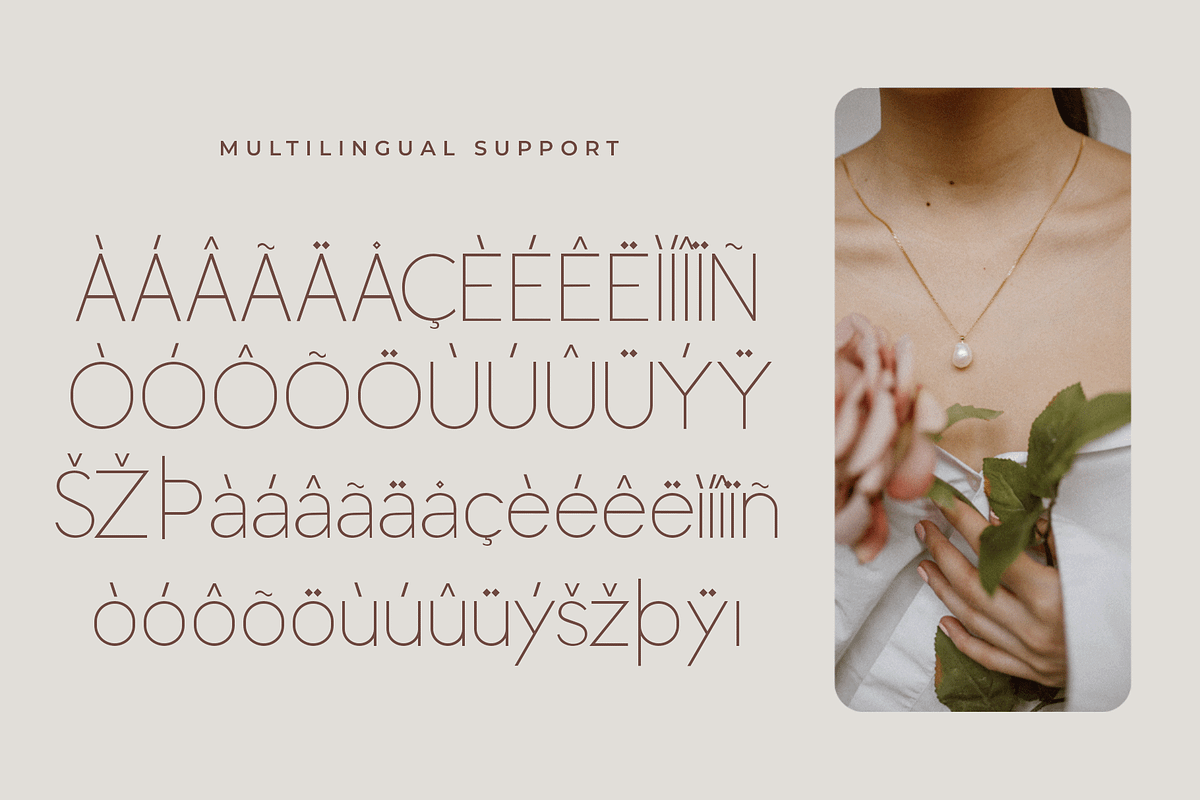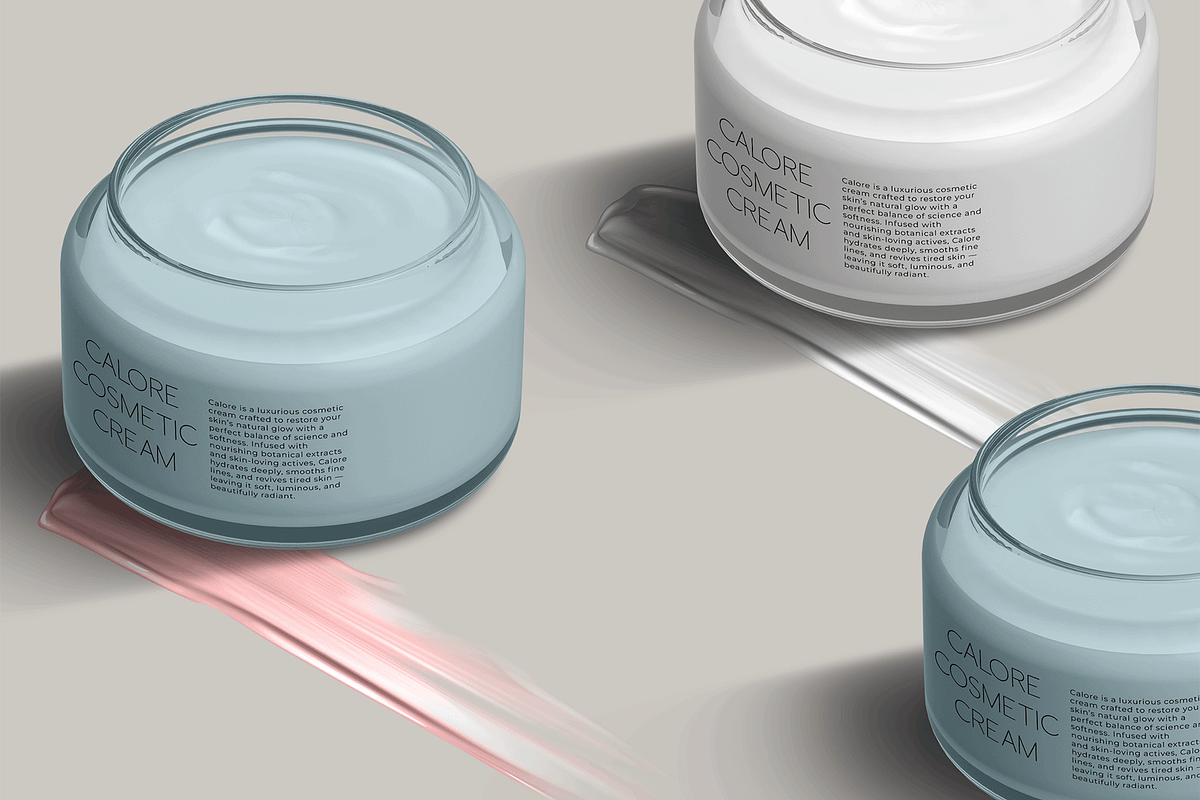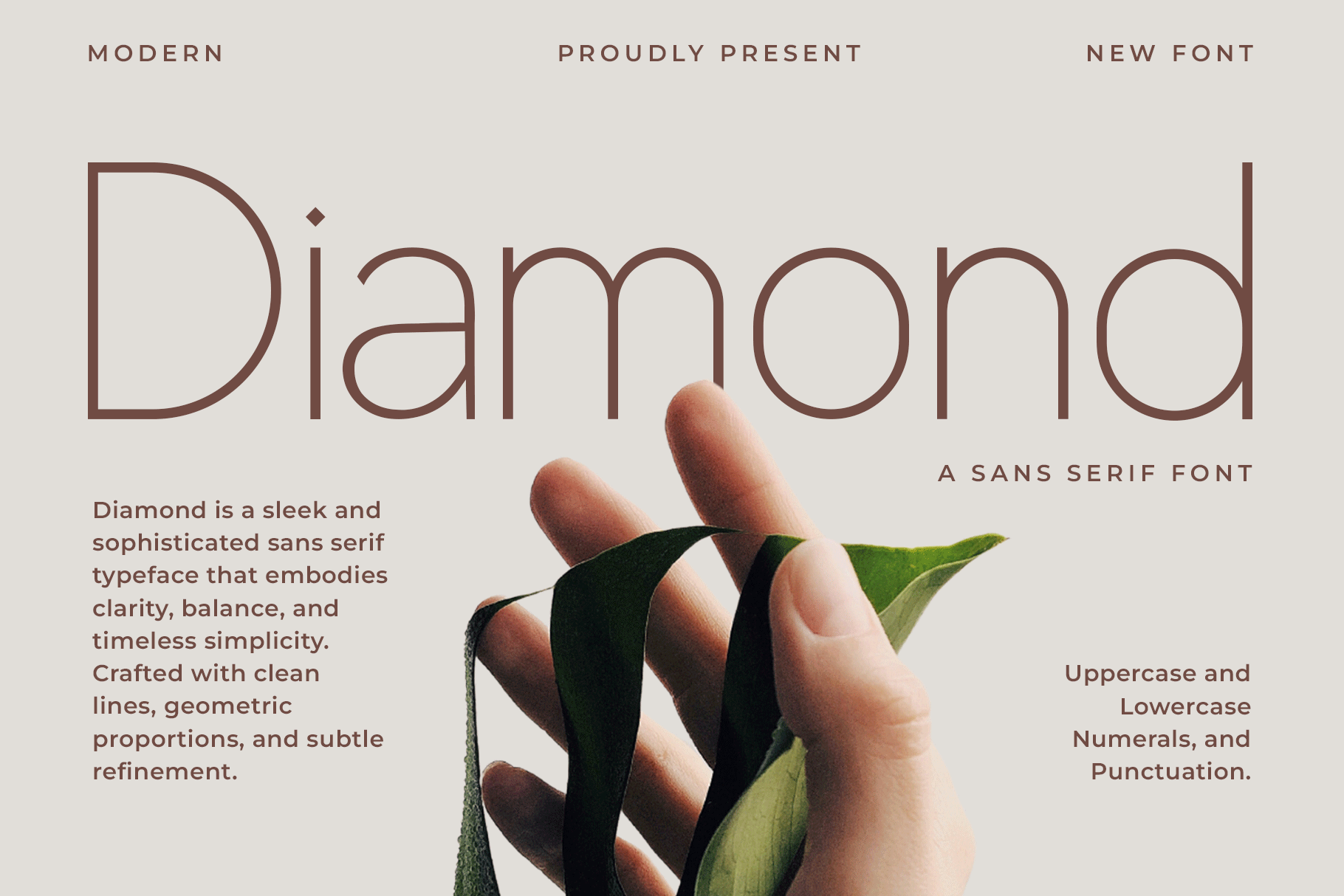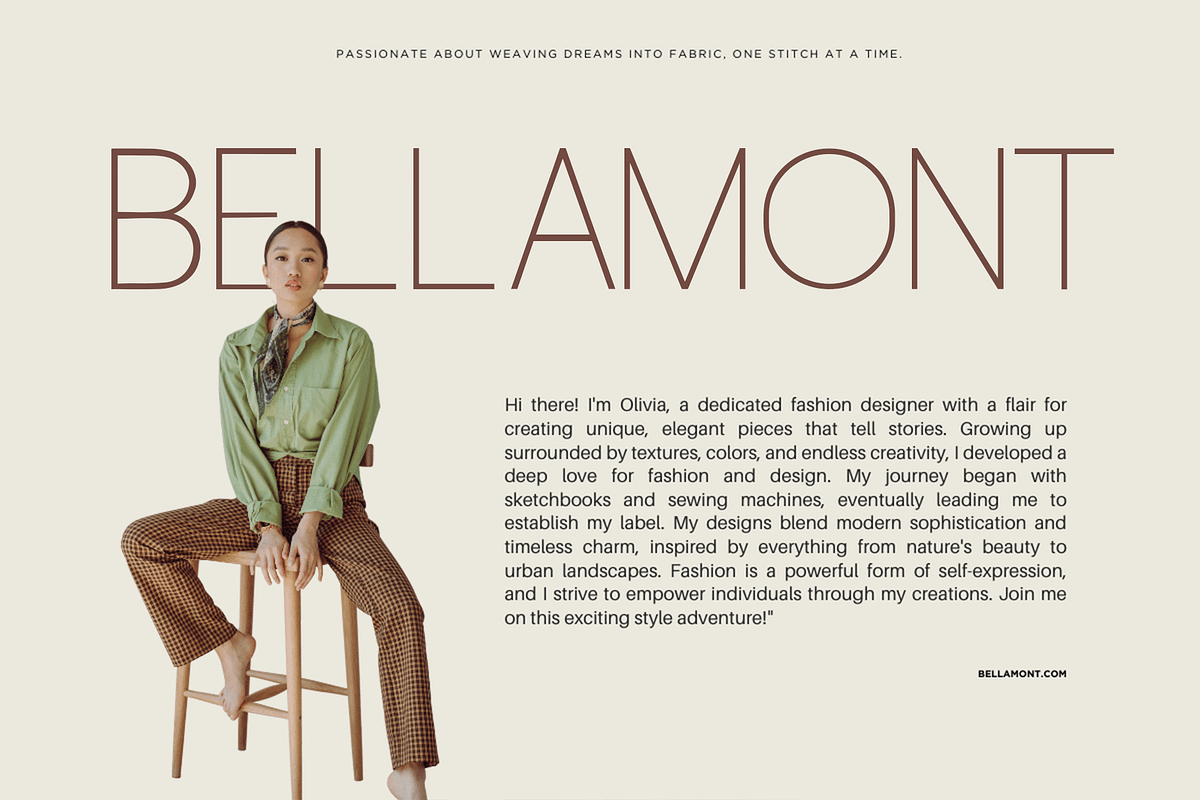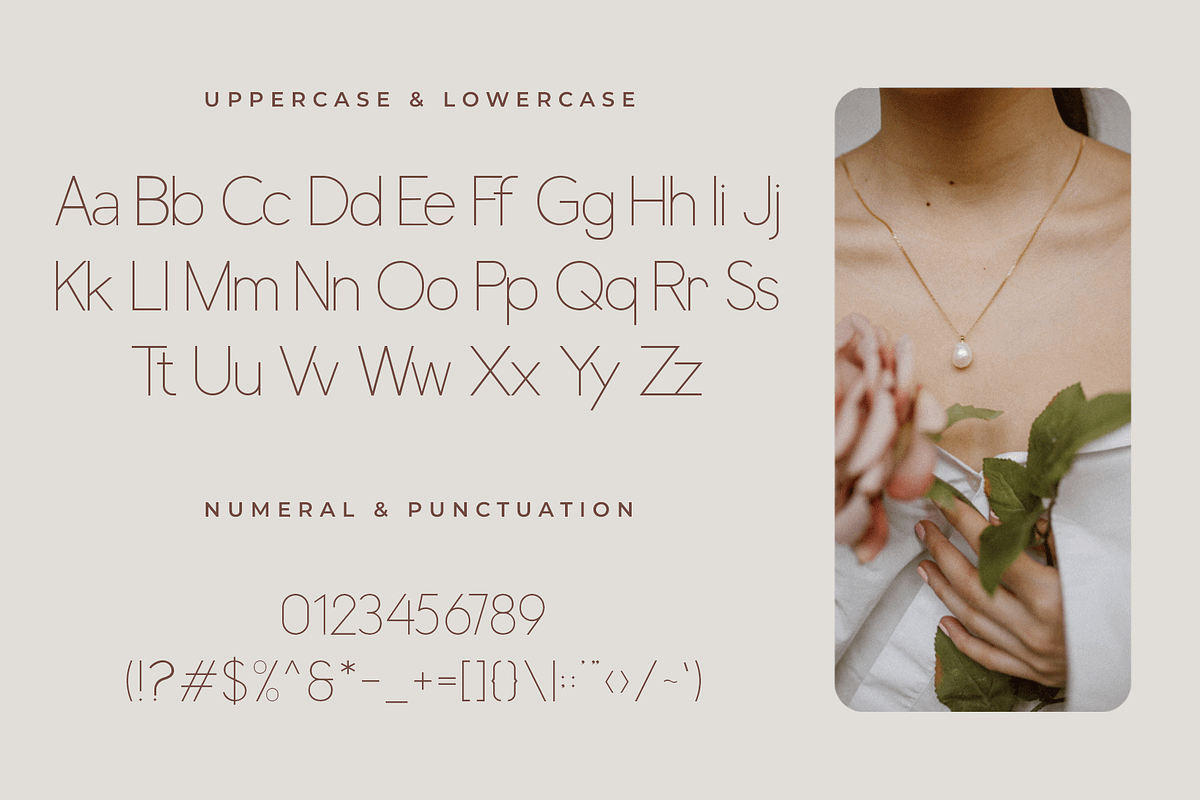
Diamond–Elegant Sans Serif Typeface
Diamond – Elegant Sans Serif Typeface
Diamond is a sleek and sophisticated sans serif font that captures the beauty of minimalism with a refined geometric structure. Its clean lines, sharp edges, and balanced proportions give your designs a professional and luxurious look while maintaining optimal readability across all platforms.
Perfect for branding, editorial layouts, logo design, packaging, and digital applications, Diamond offers a versatile design solution that adapts to both bold statements and subtle messaging. This typeface includes uppercase and lowercase letters, numerals, punctuation, and multilingual support making it an essential tool for modern designers.
Let your creativity shine with Diamond, a sans serif typeface that delivers elegance and precision in every character.